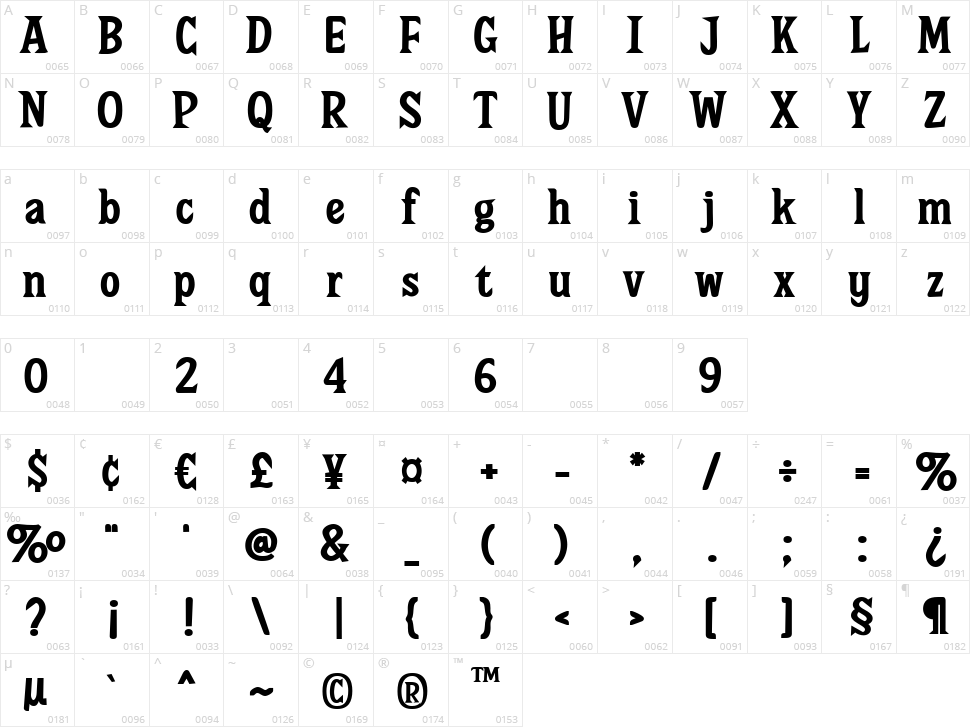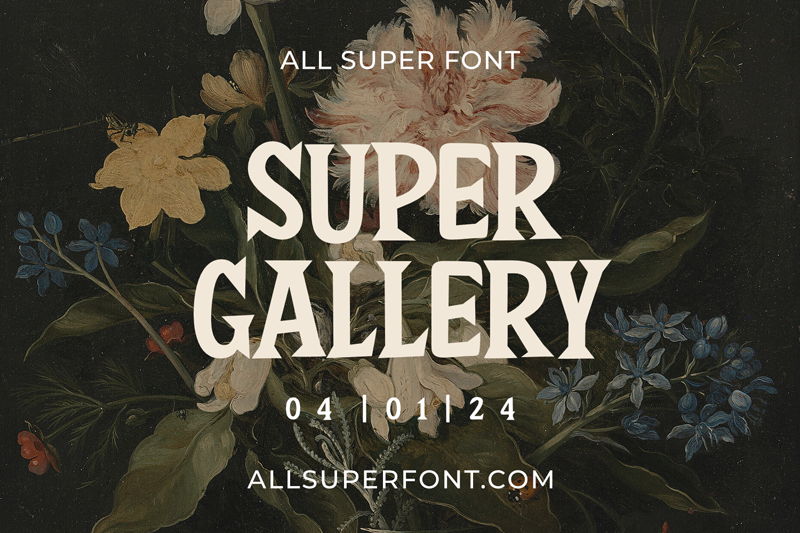
Super Gallery
Super Gallery: Where Playful Meets Sharp
Super Gallery is a font that bursts with personality, perfect for adding a touch of fun and whimsy to your designs.